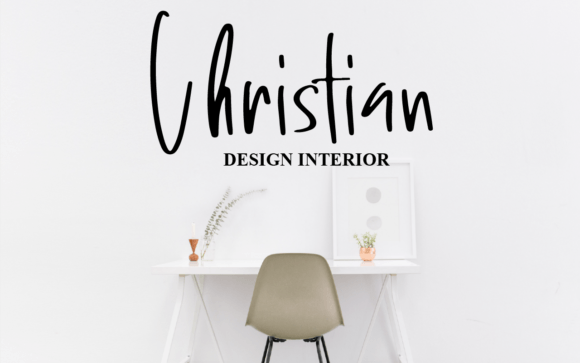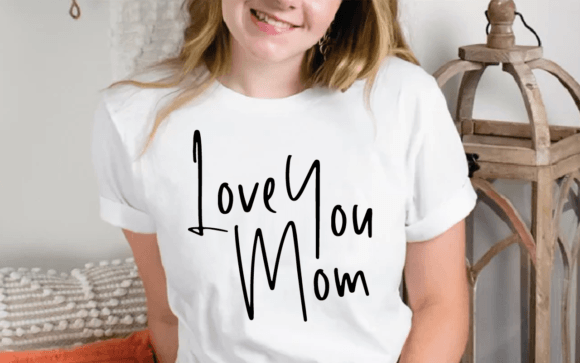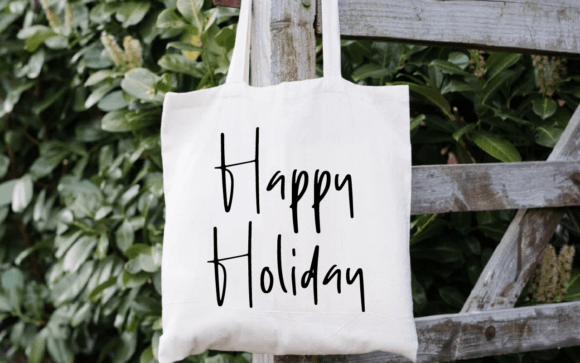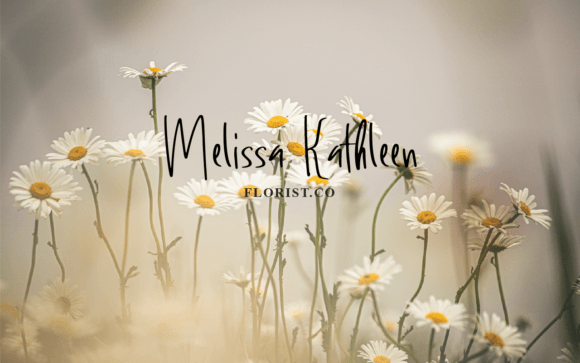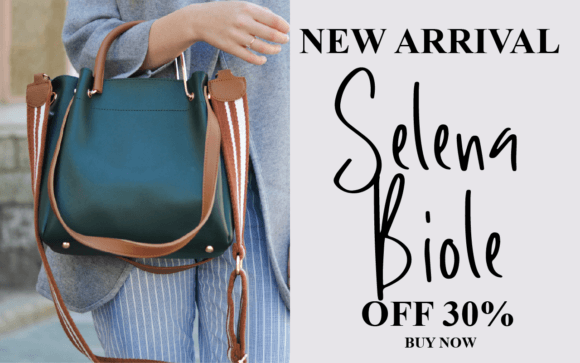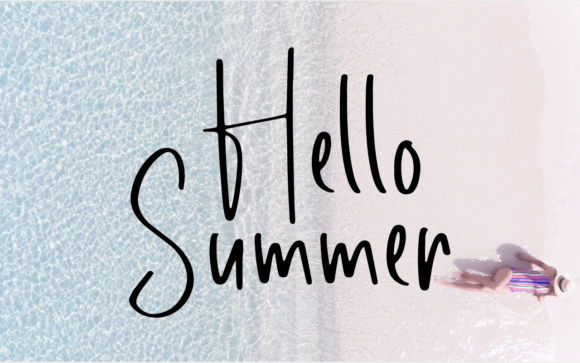
Introducing Adalyn Font: Elevate Your Design with Elegance and Sophistication
Are you a designer or crafter looking for a font that can add a touch of luxury to your projects? Look no further than Adalyn Font, a beautiful and light handwritten font that is sure to make your designs stand out. With its unique feel and stunning impact, Adalyn Font is the perfect choice for anyone looking to add a touch of elegance and sophistication to their work.
The Unique Features of Adalyn Font
Adalyn Font is a one-of-a-kind font that boasts a range of unique features that set it apart from other fonts. Its light and airy feel makes it perfect for designs that require a touch of elegance and refinement. The font’s handwritten style gives it a personal and organic feel, making it ideal for projects that require a human touch.
Adding a Luxury Spark to Your Designs
Adalyn Font is designed to add a luxury spark to any design project. Whether you’re working on a branding project, a website, or a craft project, this font is sure to elevate your design to the next level. Its stunning impact is sure to grab the attention of your audience and leave a lasting impression.
Adalyn Font is perfect for designers and crafters who are looking for a font that can help them create unique and eye-catching designs. Whether you’re a professional designer or a hobbyist crafter, this font is sure to inspire you to create something truly special. Its versatility makes it suitable for a wide range of projects, from wedding invitations and branding materials to craft projects and DIY tutorials.
Key Benefits of Using Adalyn Font
- Unique and eye-catching: Adalyn Font is a one-of-a-kind font that is sure to grab the attention of your audience.
- Elegant and sophisticated: This font’s light and airy feel makes it perfect for designs that require a touch of elegance and refinement.
- Versatile: Adalyn Font is suitable for a wide range of projects, from branding and websites to craft projects and DIY tutorials.
How to Use Adalyn Font in Your Designs
Tips and Tricks for Getting the Most Out of Adalyn Font
- Pair it with other fonts: Adalyn Font looks great when paired with other fonts. Experiment with different font combinations to find the perfect look for your project.
- Use it for headings and titles: This font is perfect for headings and titles. Use it to add a touch of elegance and sophistication to your design.
- Experiment with colors: Adalyn Font looks great in a range of colors. Experiment with different colors to find the perfect look for your project.
Adalyn Font is a beautiful and light handwritten font that is sure to add a luxury spark to any design project. Its unique feel and stunning impact make it perfect for designers and crafters who are looking for a font that can help them create unique and eye-catching designs. With its ease of use and versatility, Adalyn Font is a must-have for anyone looking to elevate their design to the next level.